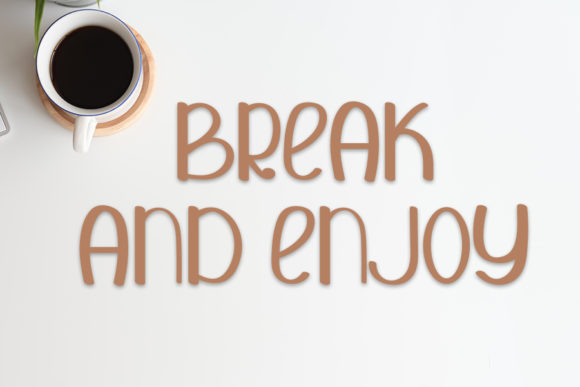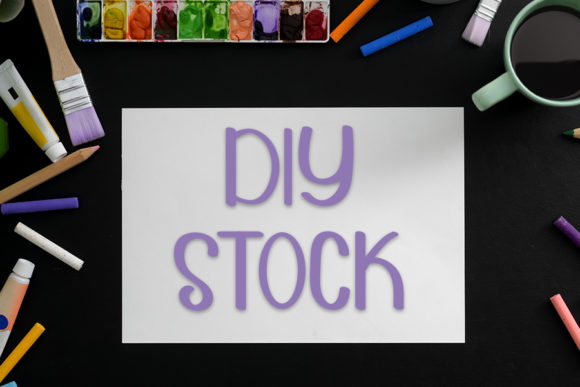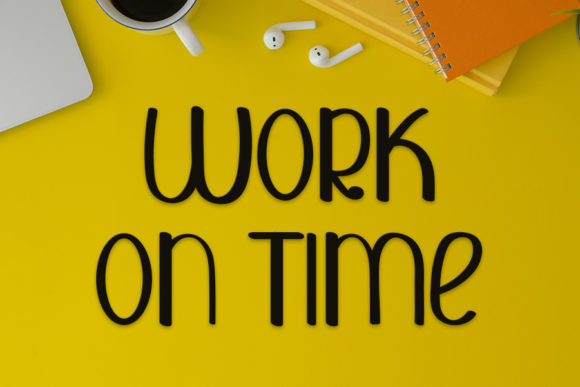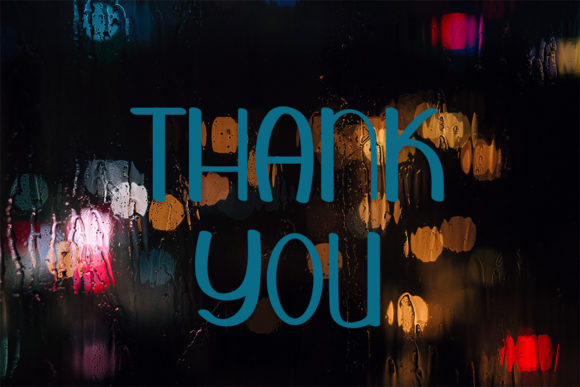
Introducing Happy Smile Summer Font: The Perfect Companion for Your Creative Projects
Are you on the hunt for a font that exudes warmth, friendliness, and a dash of playfulness? Look no further than the Happy Smile Summer Font! This delightful display font is designed to bring a smile to your face and a touch of whimsy to your creative projects. Whether you’re a designer, crafter, or simply a DIY enthusiast, Happy Smile Summer is the perfect companion to help you turn your ideas into stunning works of art.
A Cute and Casual Display Font
Happy Smile Summer Font is a beautifully crafted display font that boasts an incredibly friendly feel. Its cute and casual design makes it an ideal choice for a wide range of creative projects, from social media graphics and Instagram posts to calligraphy scripts and DIY crafts. The font’s playful and approachable vibe is sure to capture the hearts of your audience and leave a lasting impression.
Perfect for Instagram and Social Media
In today’s digital age, having a strong online presence is crucial for designers, crafters, and small businesses. Happy Smile Summer Font is specifically designed to help you stand out on social media platforms like Instagram, where visual appeal is key. Use this charming font to create eye-catching graphics, quotes, and promotional materials that will engage your followers and set your brand apart from the rest.
Elevate Your DIY Projects with Happy Smile Summer
If you’re a crafty person who loves working on DIY projects, you’ll adore Happy Smile Summer Font. This font is perfect for calligraphy scripts, handmade cards, and other paper crafts. Add a personal touch to your creations with this beautiful font, which is sure to make your projects look professional and polished. From wedding invitations to party decorations, Happy Smile Summer Font is the perfect choice for any DIY endeavor.
Key Features of Happy Smile Summer Font
- Cute and casual design: Happy Smile Summer Font features a playful and approachable design that’s sure to bring a smile to your face.
- Display font: This font is perfect for headlines, titles, and short texts, making it ideal for display purposes.
- Friendliness: The font’s friendly feel makes it perfect for creating approachable and engaging content.
- Multipurpose: Happy Smile Summer Font can be used for a wide range of creative projects, from social media graphics to DIY crafts.
How to Use Happy Smile Summer Font
Need some inspiration to get started with Happy Smile Summer Font? Here are a few tips to help you make the most of this beautiful font:
- Pair with bold colors: Happy Smile Summer Font looks amazing with bold and bright colors. Try pairing it with a vibrant color scheme to create a fun and playful design.
- Add illustrations: This font pairs perfectly with illustrations and graphics. Add some cute illustrations to your design to make it more engaging and whimsical.
- Experiment with textures: Add some texture to your design by using Happy Smile Summer Font with different textures and patterns.